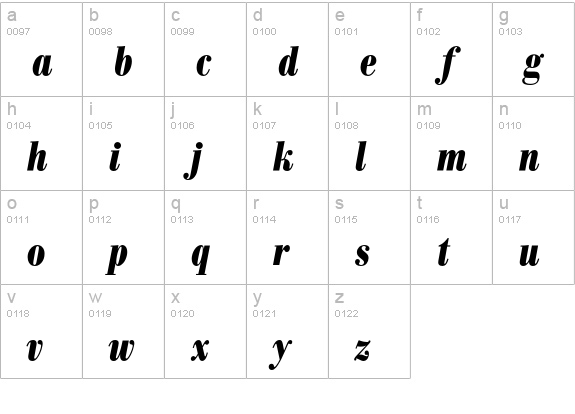
Bodoni Berthold Condensed BQ Bold Italic Font Details
Bodoni Berthold Condensed BQ Bold Italic is a strong, high-contrast, condensed-width, italic variant in the Bodoni typeface family \xE2\x80\x94 well suited to headlines, attention-grabbing titles, and strong calls-to-action.
The Bodoni Berthold Condensed BQ Bold Italic font is a striking and elegant typeface that exudes sophistication and modernity. With its bold and italic design, this font is perfect for adding a touch of drama and flair to your projects. The condensed style of the font gives it a sleek and streamlined look, making it ideal for headlines, titles, and other display purposes. What's even better is that this beautiful font is available for free download at FontsMarket.com. Whether you're a designer looking to elevate your projects or a creative looking to make a statement, the Bodoni Berthold Condensed BQ Bold Italic font is a versatile and powerful choice that will surely make an impact. Download it now and add a touch of style to your designs!